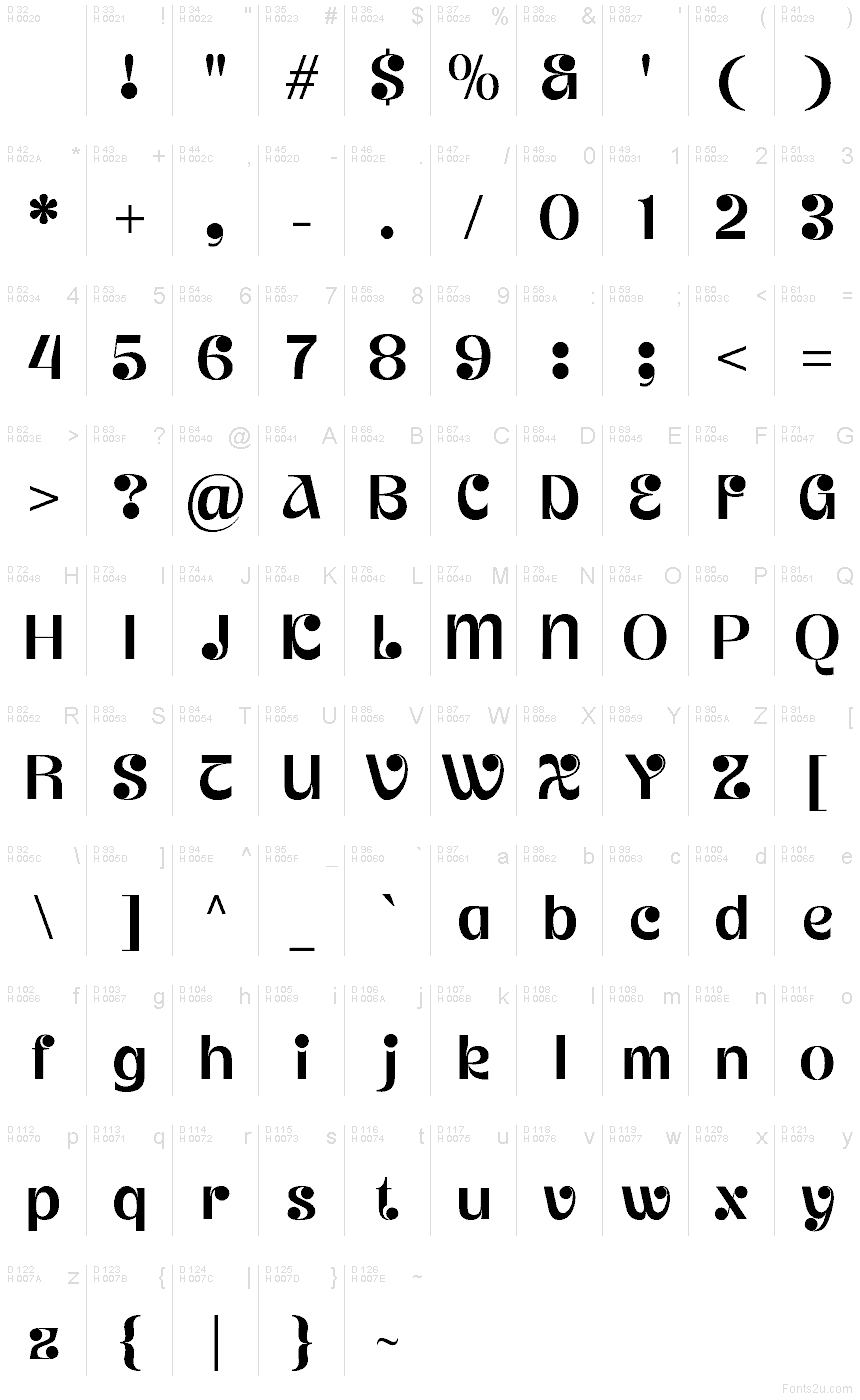
JtModernism-Regular
JT Modernism font by Jolicia Type Foundry is a sleek design that blends a funky aesthetic with a modern twist. This geometric and contemporary display font comes in 18 weights and presents varying character styles which will easily become the highlight of any design. With its minimalistic aesthetic, JT Modernism offers great versatility in both printed projects and apps.
Decorate magazines, newsletters, event invitations, cards, books covers or unusual advertisements. Shine online by using this free display font in websites, social media posts, video games visuals or mobile and PC apps while always getting some audience attention!
Jt Modernism by Jolicia Type